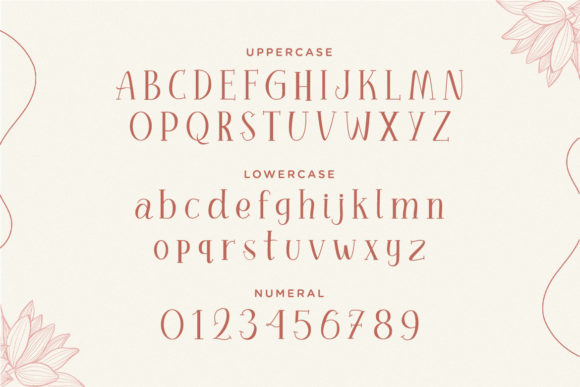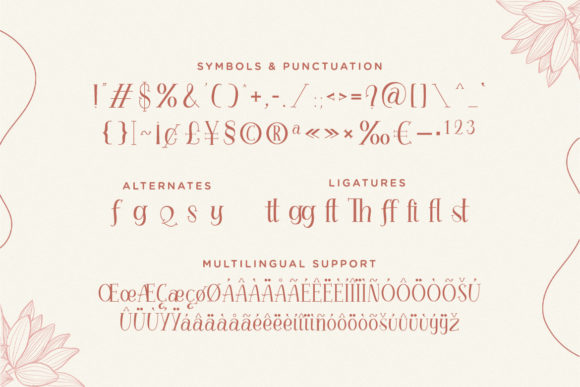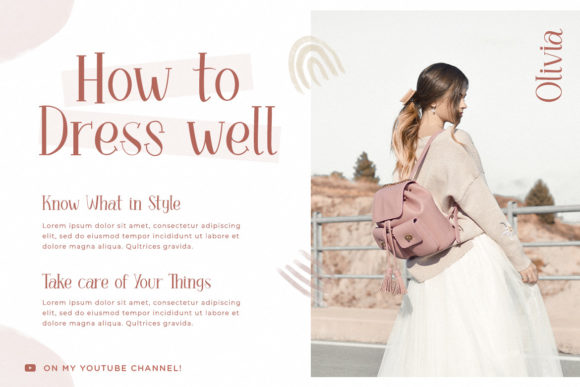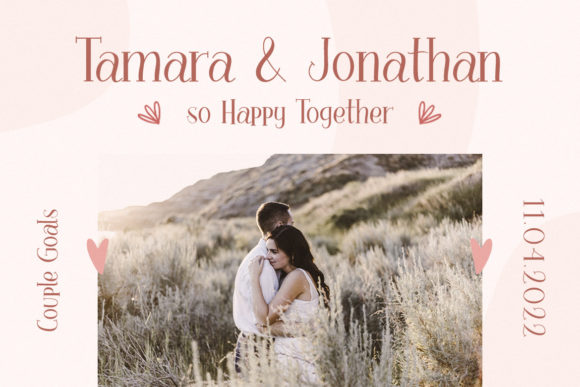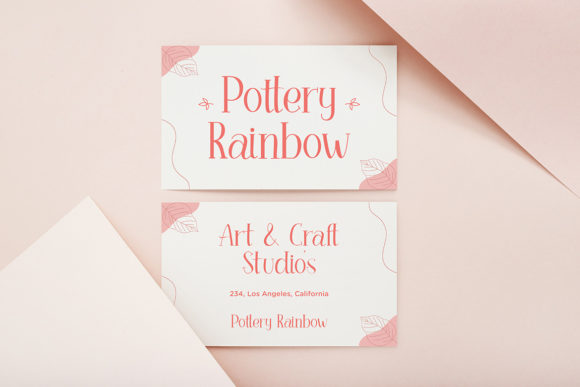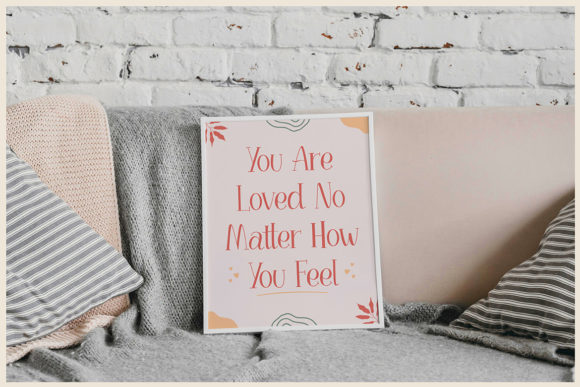
Introduction to Miyatta Font
Have you ever stumbled upon the perfect font that sets the tone for your entire creative project? For many designers, this moment is pure magic. It’s the moment when everything falls into place, and your vision starts to take shape. This is exactly what happens when you discover the Miyatta Font.
As a versatile and elegant serif font, Miyatta Font is a valuable resource for designers looking to elevate their projects. Whether you’re crafting stunning party invitations, creating beautiful printed quotes, or designing standout packaging, this font has got you covered. With its high-quality design and transparent background, Miyatta Font is perfect for a variety of creative needs.
Key Features of Miyatta Font
- Includes a range of characters, including uppercase and lowercase letters, numbers, and special characters.
- Unique characteristics include a modern and sleek aesthetic, making it perfect for contemporary design projects.
Honest Review: Miyatta Font
I recently came across the Miyatta Font and I’m excited to share my thoughts on this free design resource. I was immediately drawn to its unique style and high quality feel.
- ✨ Unique and creative design that sets it apart from other fonts
- ✨ High quality and crisp lines, making it perfect for print projects
- ⚠️ Limited character set, which may not be suitable for longer texts or professional publications
Overall, I’m impressed with the Miyatta Font and its potential for creative projects. While it may have some limitations, its unique design and high quality make it a valuable addition to any designer’s toolkit. Whether you’re working on a personal project or a professional publication, the Miyatta Font is definitely worth considering.
Miyatta Font
Designing with Miyatta Font
Tips for Getting the Most Out of Miyatta Font
To get the most out of the Miyatta Font, use it in combination with other high-quality design resources. Experiment with different font sizes, colors, and styles to create a unique and eye-catching design.
The Miyatta Font is perfect for creating eye-catching titles, headings, and body text for various creative projects, including posters, flyers, business cards, and social media graphics.